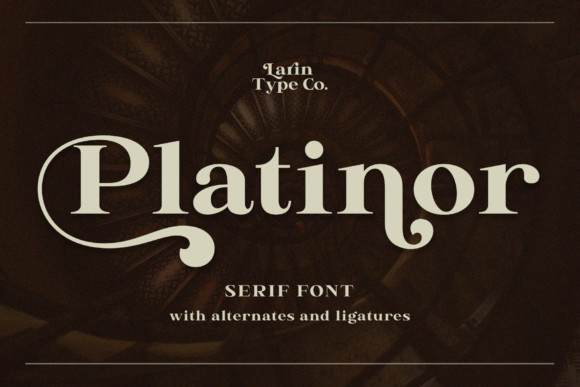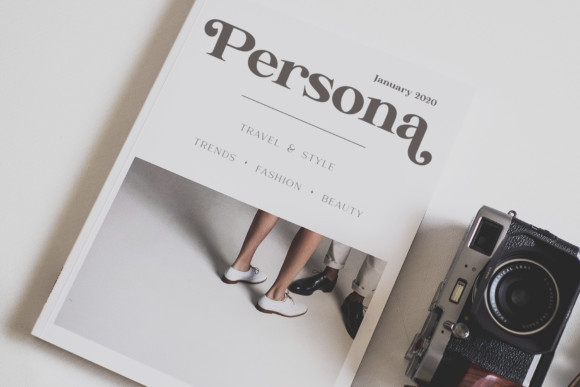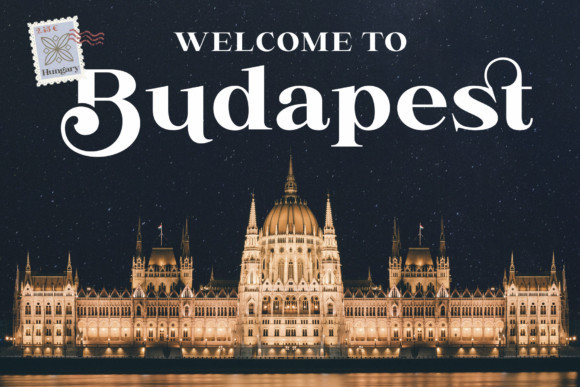
Platinor Font
Platinor is a beautiful and elegant serif font. While it carries the look and feel of a classic display font, it also has a distinct contemporary charm.